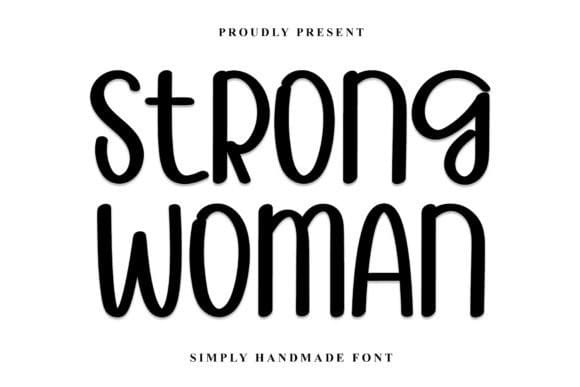
Strong Woman Font
Strong Woman Font is a neat and beautiful handwritten font described by an elegant touch, perfect for your favorite projects. Fall in love with its incredibly distinct and timeless style, and use it to create spectacular designs!